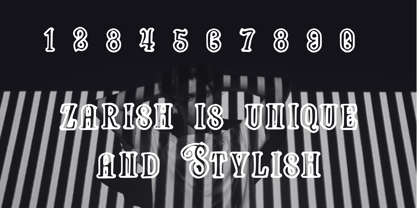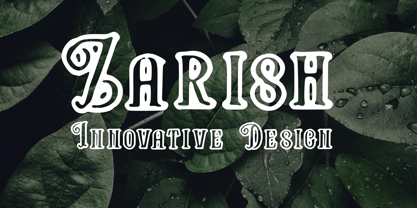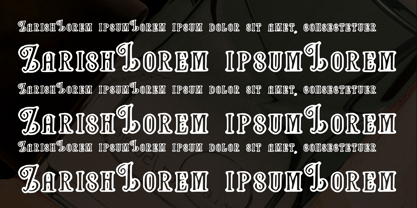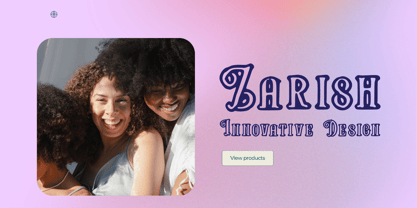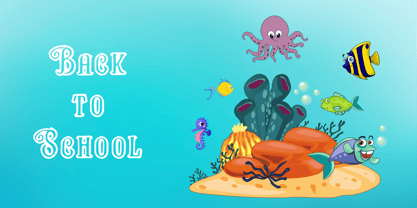
Zarish
Zarish is a sophisticated serif typeface crafted by Bangladeshi designer Arifur Rahman, blending classical elegance with a modern touch. The Zarish Book style offers a balanced weight ideal for editorial use, branding, and refined display purposes.
Every curve and serif in Zarish is thoughtfully drawn to maintain both readability and distinctive personality. Its soft flared serifs, generous spacing, and subtle contrast make it versatile for both print and digital platforms.
Whether used in magazine layouts, book titles, packaging, or upscale branding, Zarish stands out with a quiet confidence, timeless yet contemporary.
Features:
• Style: Zarish Book
• Ideal for: Editorial design, branding, luxury packaging, invitations, and logo design
Bring an air of understated sophistication to your next project with Zarish.